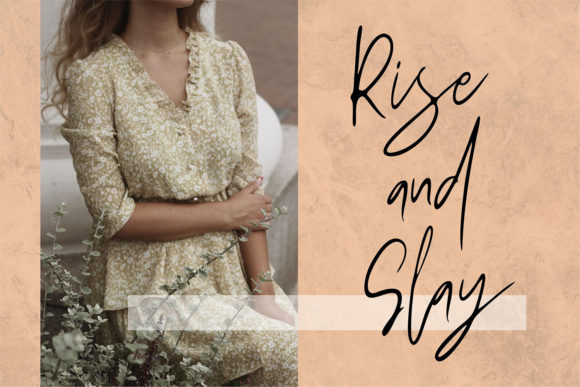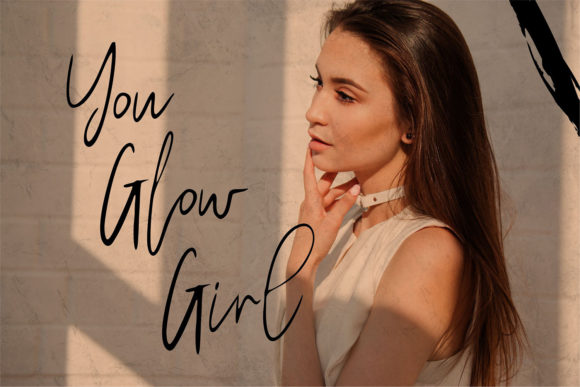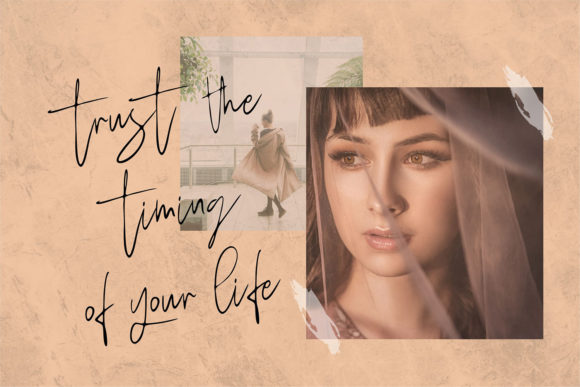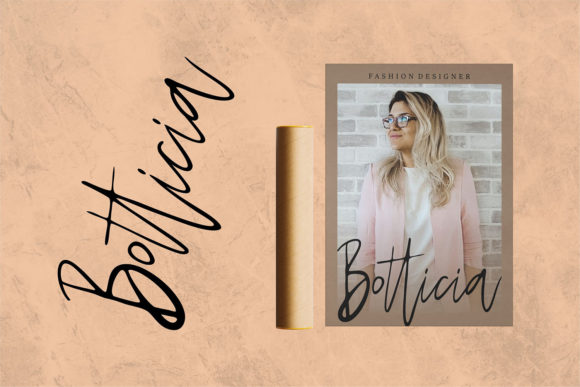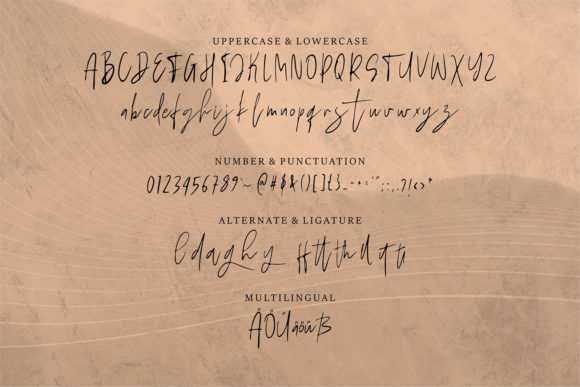
Jandariya Font
About Jandariya Font
Jandariya is a fashionable and relaxed script font. It has a classy, elegant and modern look that can be used for logos, branding, invitations, stationery, wedding designs, social media posts, and much more!